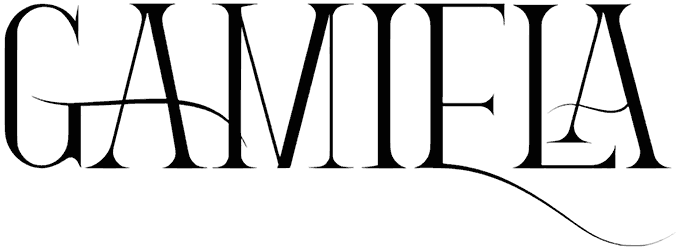
Gamiela Font
Have a fancy for a clean yet luxury serif font to distinguish your future design? If affirmative, keep in touch with us and spare the time by using this incredible serif font.
Gamiela comes closer to lend a hand to you to win over the others in developing many contents including posters, main texts, magazines, and branding. Sure thing, lacking numbers never cause trouble in designing, so get your act together and see how it goes well.